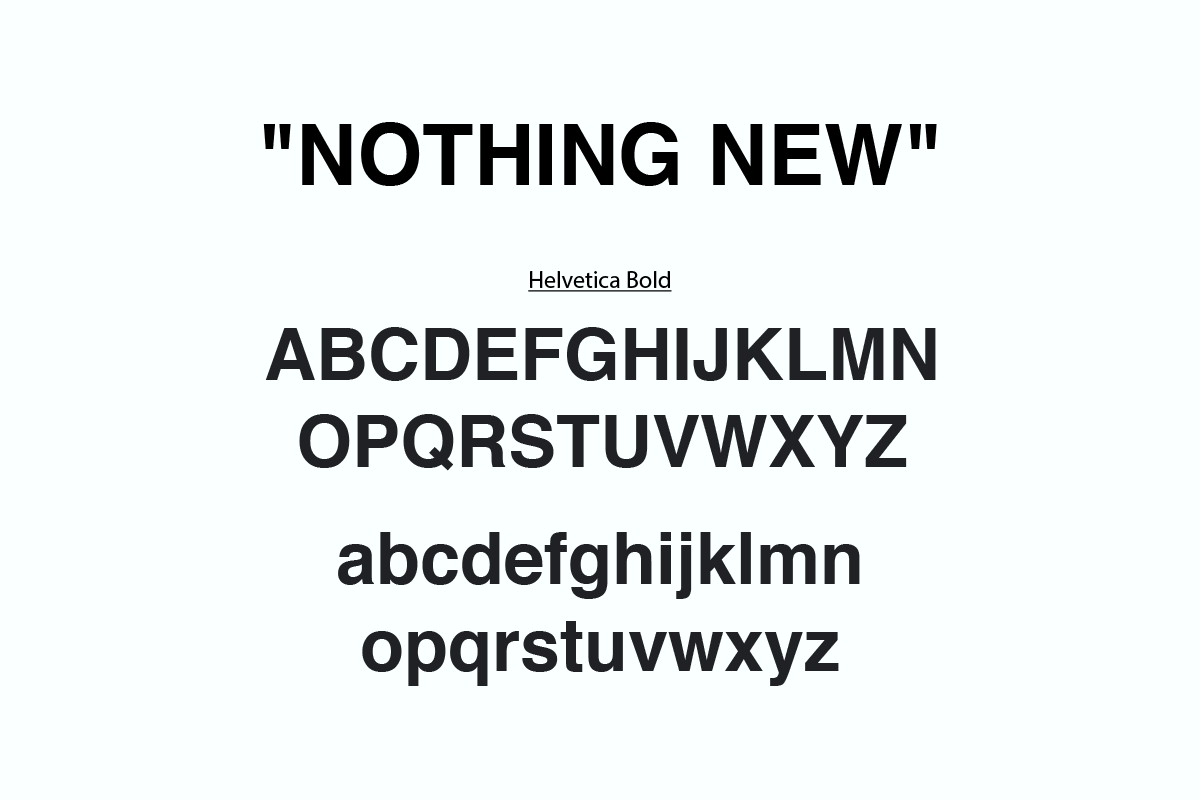
Off White Font Quotation Marks . Users suggest helvetica bold, futura and. This comes on every mac. There’s mytupi bold , and helvetica bold with straight quotes. The quotes are made using inch marks instead of quotes. The linotype foundry designs the helvetica neue bold, and it’s also available for personal and commercial use. The correct overall font with quotation is: Off white has used a different version of a typeface for some collections and clothes quotations, and the font they used is called helvetica neue bold. Not sure about the pc A discussion thread about the font used by off white, a fashion brand by virgil abloh. There is a setting in the program indesign that allows you to switch.
The quotes are made using inch marks instead of quotes. The correct overall font with quotation is: The linotype foundry designs the helvetica neue bold, and it’s also available for personal and commercial use. Users suggest helvetica bold, futura and. There is a setting in the program indesign that allows you to switch. Not sure about the pc Off white has used a different version of a typeface for some collections and clothes quotations, and the font they used is called helvetica neue bold. A discussion thread about the font used by off white, a fashion brand by virgil abloh. This comes on every mac. There’s mytupi bold , and helvetica bold with straight quotes.
Off White Font Quotation Marks There is a setting in the program indesign that allows you to switch. The correct overall font with quotation is: There is a setting in the program indesign that allows you to switch. Not sure about the pc There’s mytupi bold , and helvetica bold with straight quotes. Users suggest helvetica bold, futura and. The linotype foundry designs the helvetica neue bold, and it’s also available for personal and commercial use. The quotes are made using inch marks instead of quotes. Off white has used a different version of a typeface for some collections and clothes quotations, and the font they used is called helvetica neue bold. A discussion thread about the font used by off white, a fashion brand by virgil abloh. This comes on every mac.
White Quotation Marks Large White Quote Marks, HD Png Download Off White Font Quotation Marks There is a setting in the program indesign that allows you to switch. Users suggest helvetica bold, futura and. Not sure about the pc The quotes are made using inch marks instead of quotes. A discussion thread about the font used by off white, a fashion brand by virgil abloh. The correct overall font with quotation is: The linotype foundry. Off White Font Quotation Marks.
Quotation marks symbol. png Quotation marks symbol. illustration on Off White Font Quotation Marks The correct overall font with quotation is: Off white has used a different version of a typeface for some collections and clothes quotations, and the font they used is called helvetica neue bold. Not sure about the pc Users suggest helvetica bold, futura and. A discussion thread about the font used by off white, a fashion brand by virgil abloh.. Off White Font Quotation Marks.
Off White Font Free Download FontSwan Off White Font Quotation Marks Not sure about the pc A discussion thread about the font used by off white, a fashion brand by virgil abloh. The correct overall font with quotation is: The quotes are made using inch marks instead of quotes. There is a setting in the program indesign that allows you to switch. Off white has used a different version of a. Off White Font Quotation Marks.
Quotation marks symbol. png Quotation marks symbol. illustration on Off White Font Quotation Marks The quotes are made using inch marks instead of quotes. A discussion thread about the font used by off white, a fashion brand by virgil abloh. This comes on every mac. The correct overall font with quotation is: The linotype foundry designs the helvetica neue bold, and it’s also available for personal and commercial use. There is a setting in. Off White Font Quotation Marks.
Quotation Marks Font Off White Font Quotation Marks There’s mytupi bold , and helvetica bold with straight quotes. Not sure about the pc There is a setting in the program indesign that allows you to switch. This comes on every mac. Users suggest helvetica bold, futura and. A discussion thread about the font used by off white, a fashion brand by virgil abloh. Off white has used a. Off White Font Quotation Marks.
Quotation marks symbol. illustration on Off White Font Quotation Marks There is a setting in the program indesign that allows you to switch. There’s mytupi bold , and helvetica bold with straight quotes. Off white has used a different version of a typeface for some collections and clothes quotations, and the font they used is called helvetica neue bold. The linotype foundry designs the helvetica neue bold, and it’s also. Off White Font Quotation Marks.
Quotation Marks , Free Transparent ClipartKey Off White Font Quotation Marks This comes on every mac. There is a setting in the program indesign that allows you to switch. Users suggest helvetica bold, futura and. Off white has used a different version of a typeface for some collections and clothes quotations, and the font they used is called helvetica neue bold. The correct overall font with quotation is: There’s mytupi bold. Off White Font Quotation Marks.
Quotation Mark PNG All Off White Font Quotation Marks A discussion thread about the font used by off white, a fashion brand by virgil abloh. There’s mytupi bold , and helvetica bold with straight quotes. The quotes are made using inch marks instead of quotes. The correct overall font with quotation is: Off white has used a different version of a typeface for some collections and clothes quotations, and. Off White Font Quotation Marks.
Quotation marks set 1213452 Vector Art at Vecteezy Off White Font Quotation Marks This comes on every mac. There’s mytupi bold , and helvetica bold with straight quotes. Not sure about the pc A discussion thread about the font used by off white, a fashion brand by virgil abloh. The quotes are made using inch marks instead of quotes. The linotype foundry designs the helvetica neue bold, and it’s also available for personal. Off White Font Quotation Marks.